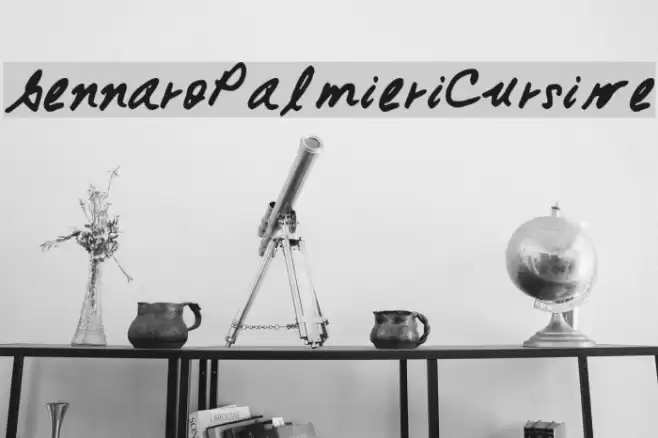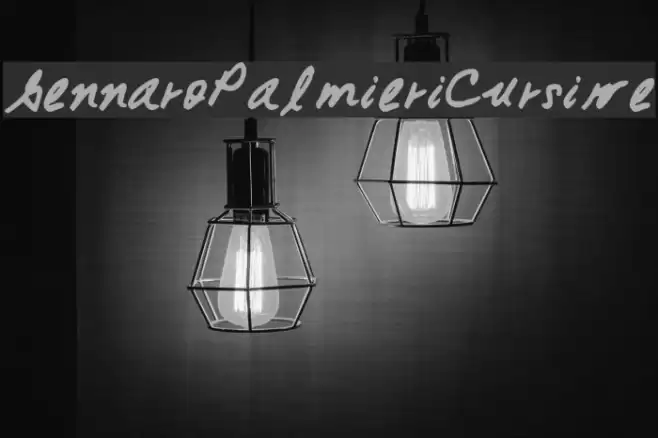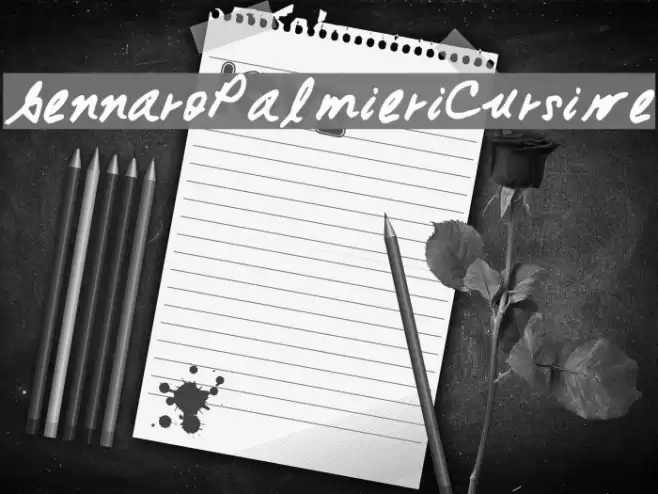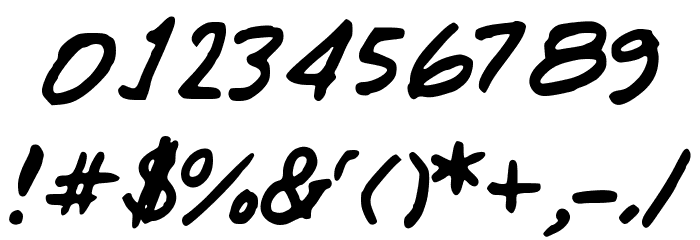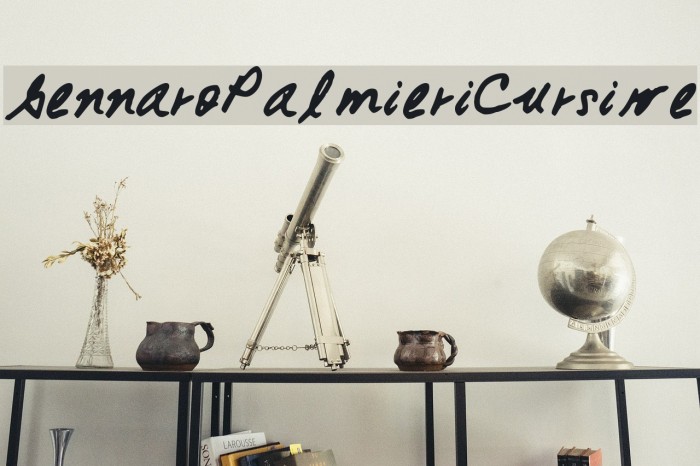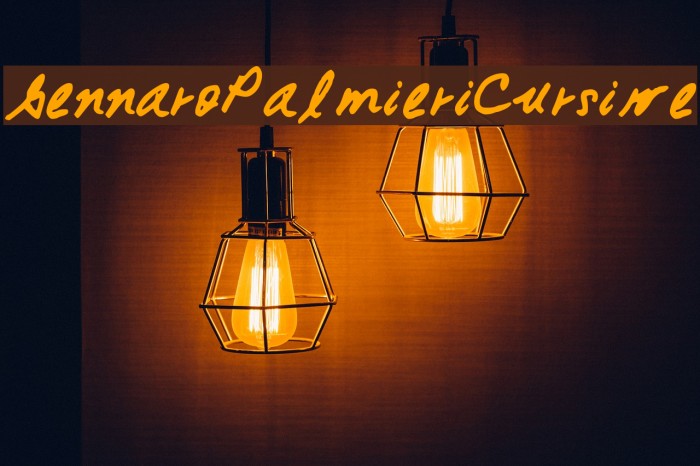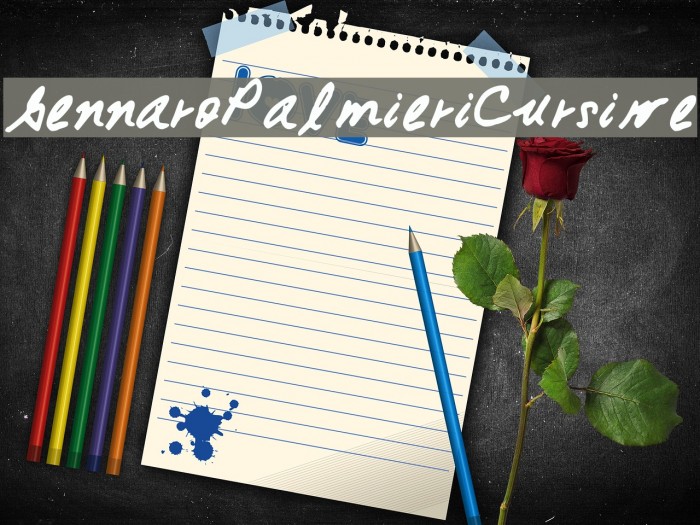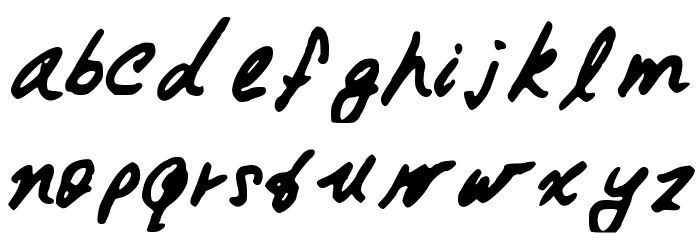
GennaroPalmieriCursive Font
GennaroPalmieriCursive Description
This font features a fluid and dynamic cursive style, reminiscent of handwritten script. The letters are connected, creating a seamless flow that enhances its elegant and personal touch. The uppercase letters maintain a consistent height, while the lowercase letters exhibit a slight slant, adding to the overall sense of movement. The numerals and special characters are designed to match the cursive style, ensuring uniformity across all elements. The strokes are bold and confident, with a medium contrast that highlights the natural curves and loops typical of cursive writing. This font exudes a sense of sophistication and creativity, making it suitable for projects that require a personal or artistic flair.
A dynamic cursive font with bold strokes and elegant flow from Uncategorized fonts.
- Proposed Projects: Ideal for wedding invitations, personal branding, artistic projects, and greeting cards.
- Overall Style: Elegant, Artistic
- Use Case: Logos, Invitations, Personal Branding